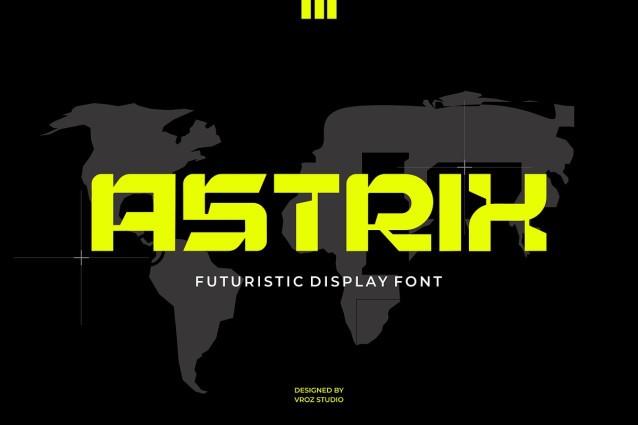
Astrix Font is a futuristic display typeface created to deliver a clean, and modern visual identity. Designed with a focus on contemporary technology and digital aesthetics, Astrix brings a strong futuristic impression that feels confident, sharp, and forward-thinking.
Built with precise geometric shapes, balanced proportions, and crisp line construction, Astrix offers a distinctive display style while remaining clear and readable. This makes it an excellent choice for headlines, logos, posters, and branding where a modern and high-tech tone is required.
Astrix is designed to support creative projects that aim to look innovative, dynamic, and visually impactful, making it suitable for both digital and print applications.